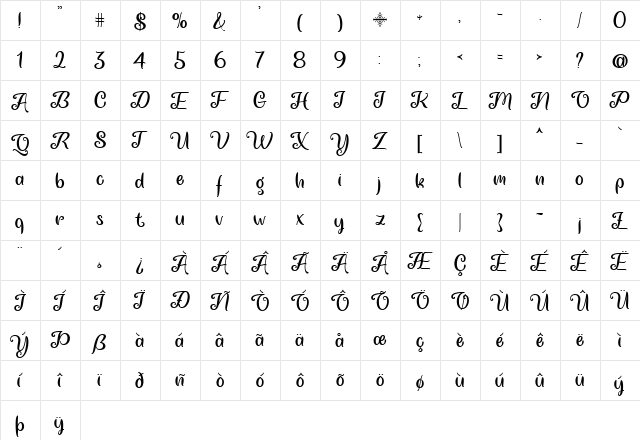
Chasing Snowflakes Regular
Chasing Snowflakes is a composed and adaptable typeface that performs quietly and consistently across a wide range of design contexts.